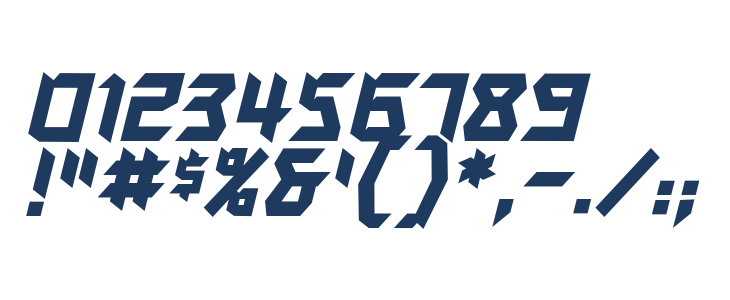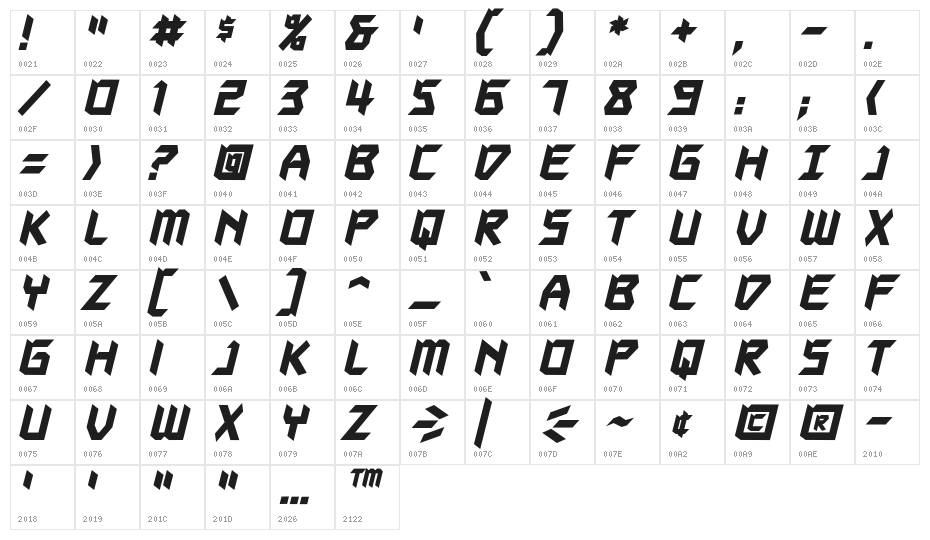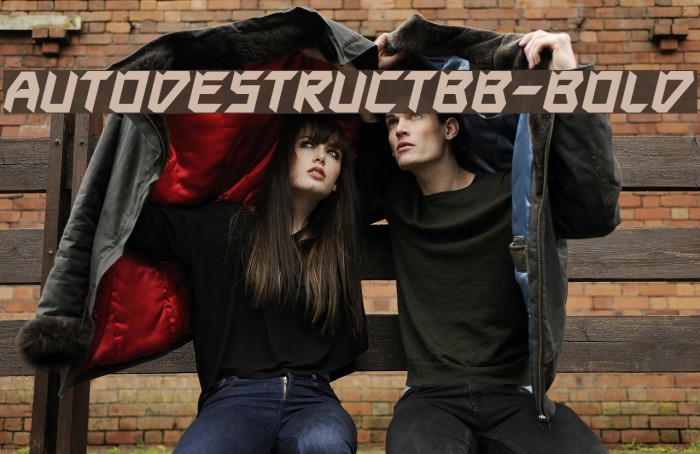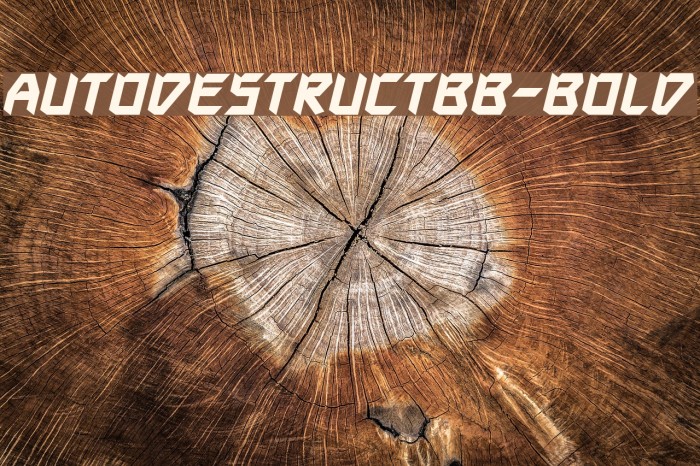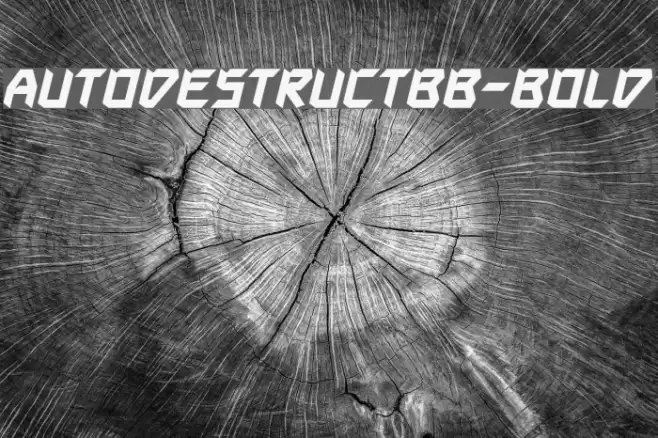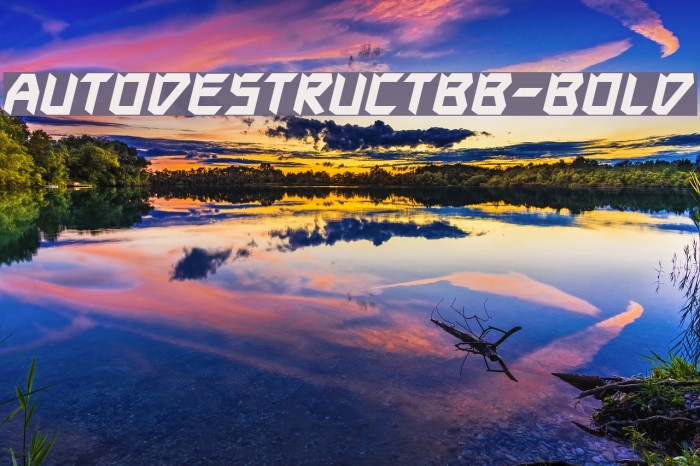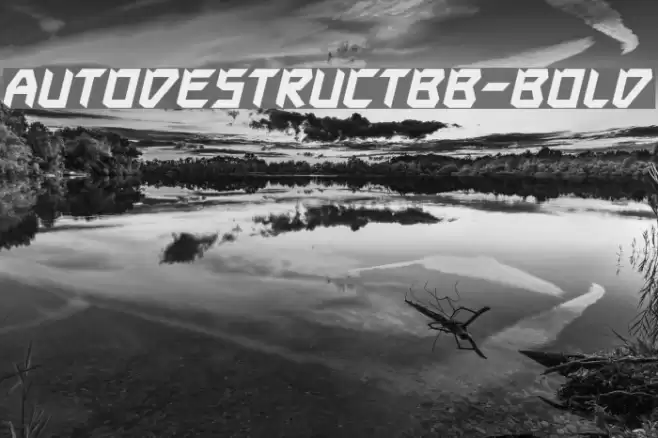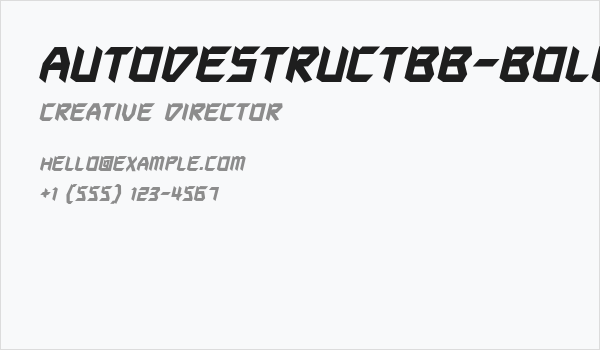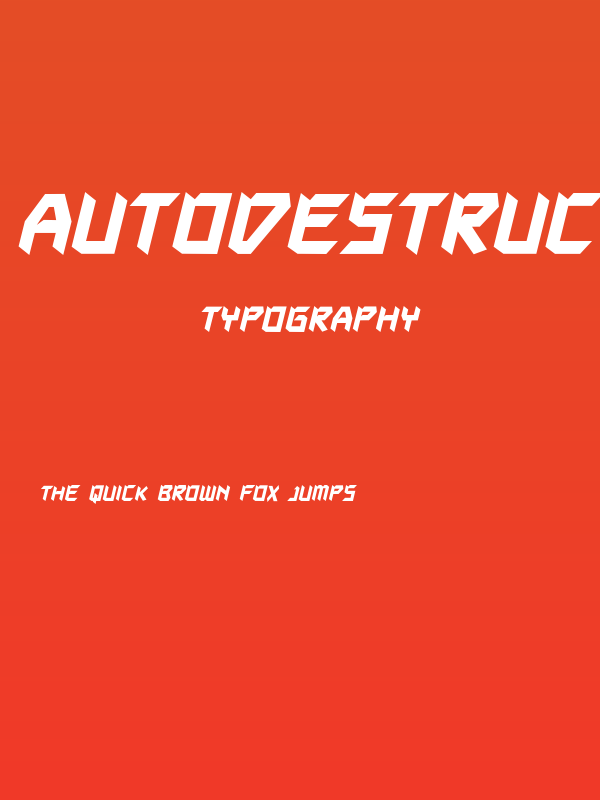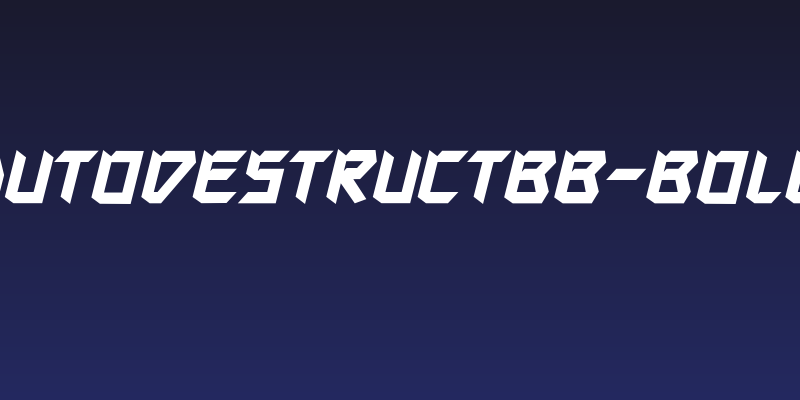
AutodestructBB-Bold Font
AutodestructBB-Bold Description
This font features a bold, angular design with sharp edges and a futuristic aesthetic. The characters are constructed with a geometric precision, giving them a dynamic and aggressive appearance. The uppercase and lowercase letters maintain a consistent style, with a slight slant that adds to the sense of motion and energy. The numerals and special characters are equally bold and match the overall design, making them suitable for impactful displays. The font's unique style makes it stand out, perfect for projects that require a modern and edgy look.
Overall StyleFuturistic
Proposed ProjectsIdeal for video game titles, sci-fi movie posters, tech branding, and sports team logos.